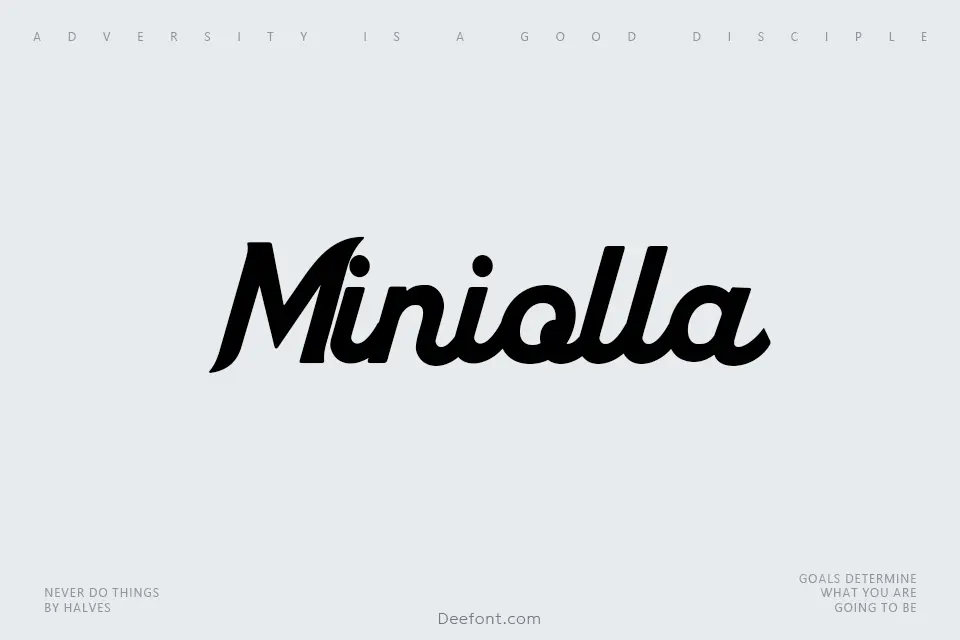
Miniolla Font
Miniolla is a striking bold script font that captures the groovy essence of 1970s typography, combining vintage charm with contemporary design appeal. Featuring connected letterforms with dynamic slant and strong strokes, this typeface excels at creating attention-grabbing headlines, decorative titles, and distinctive logotypes for branding projects. The font's characteristic handwritten aesthetic and nostalgic flair make it perfect for posters, packaging, creative stationery, and retro-themed design work. With 221 glyphs supporting accents and special characters, Miniolla delivers expressive visual impact whether displayed on large-format promotional materials or as focal point typography in editorial layouts. Ideal for designers seeking bold, playful script fonts that command attention without compromising legibility in headlines and short-form text applications.